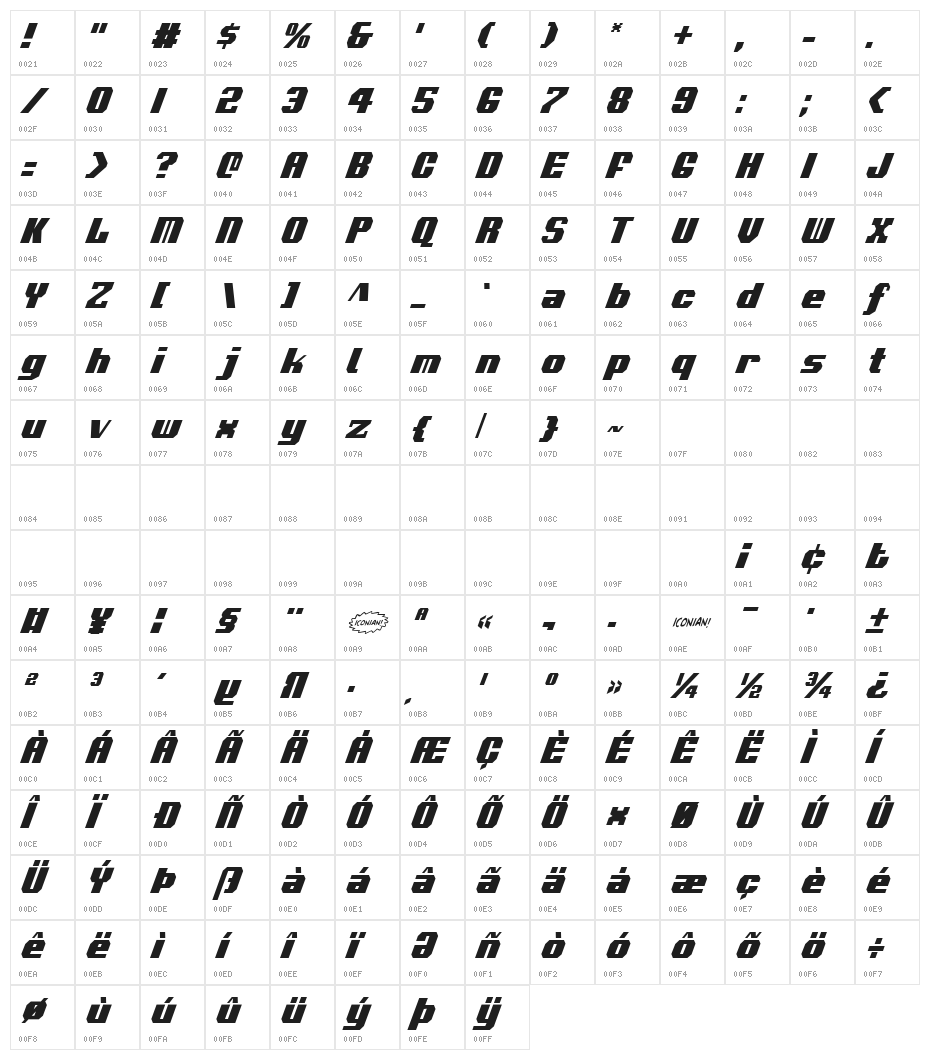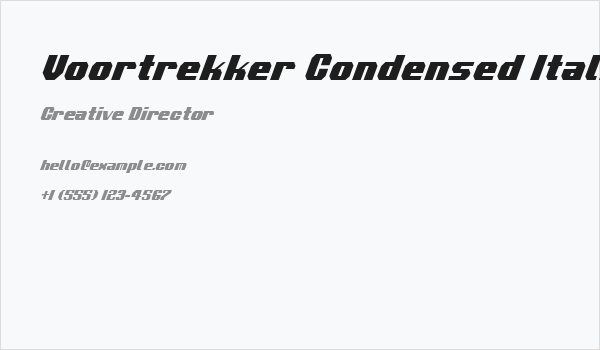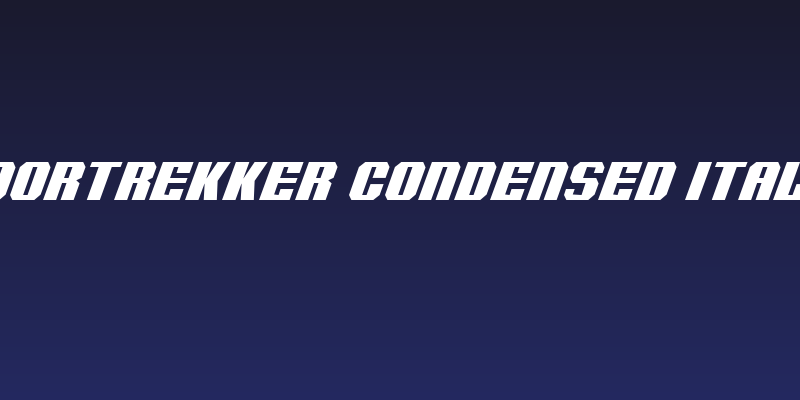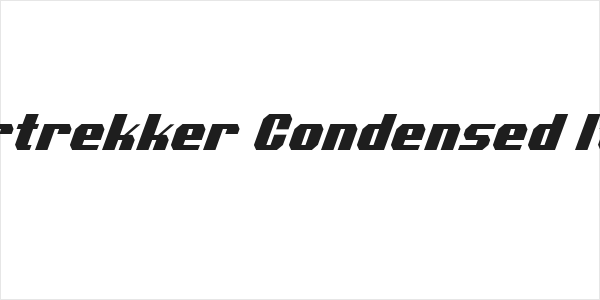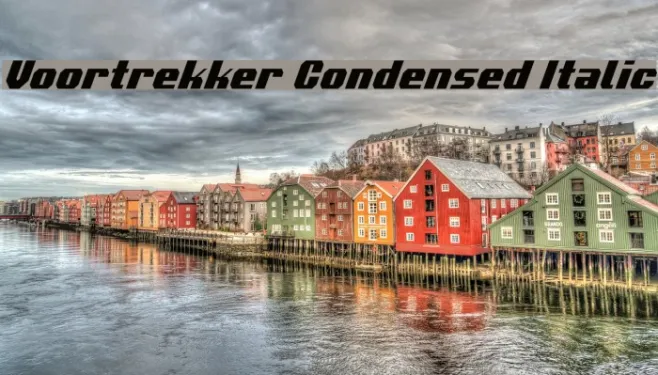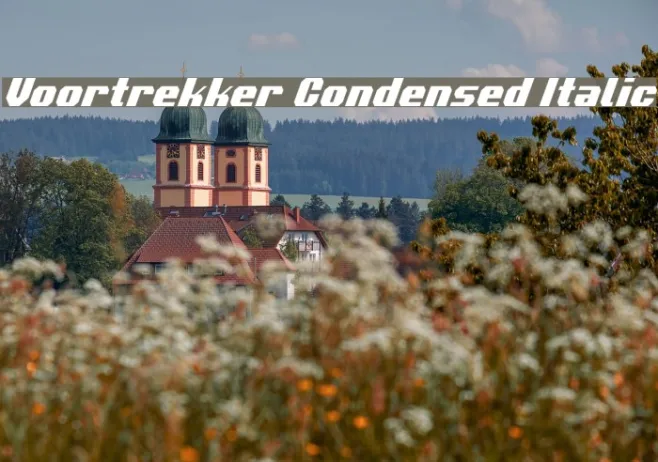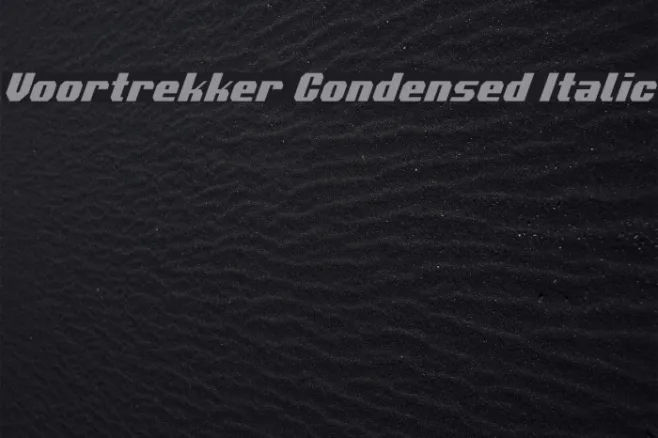
Voortrekker Condensed Italic Font
Voortrekker Condensed Italic Description
This font features a bold and dynamic style with a condensed and italicized form. The characters are sharply angled, giving them a sense of movement and energy. The uppercase and lowercase letters maintain a consistent slant, enhancing the italic effect. The numbers and special characters follow the same design principles, ensuring uniformity across all glyphs. The font's boldness and condensed width make it ideal for impactful headlines and attention-grabbing designs. Its unique style is both modern and slightly retro, appealing to projects that require a distinctive and assertive look.
| Proposed Projects | Ideal for sports branding, dynamic posters, edgy magazine covers, and modern advertising campaigns. |